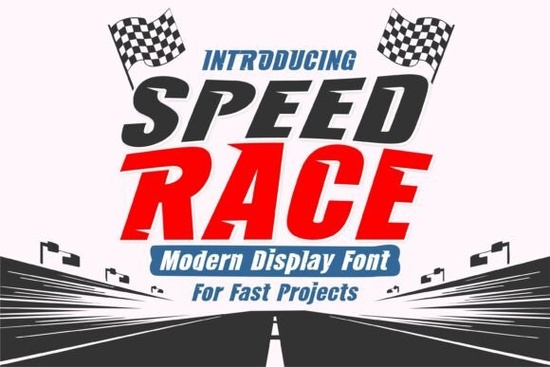
If you work on racing-themed designs, car club merch, or motorsport party invitations, the Speed Race Font deserves a spot in your font collection. AB Speed Race is a bold, racing-inspired typeface built to convey motion, power, and competitive energy. It works well for T-shirt designs, racing team logos, poster layouts, and vinyl cutting projects on Cricut or Silhouette machines.
What kind of projects work well with a racing font?
Racing fonts like Speed Race are designed for situations where you need bold, high-impact text that immediately communicates speed and energy. Think about the visual language of motorsport strong diagonal lines, aggressive weight, and a sense of forward motion baked into every letter.
Some common uses include:
- Car-themed T-shirts for enthusiasts, clubs, or event merchandise
- Racing team logos and branding for local motorsport groups
- Kids' racing birthday invitations and party decorations
- Custom decals and wall signs for garages or man caves
- Racing banners for track-day events or go-kart parties
- Sports-themed digital artwork and social media graphics
The bold styling means your text stays readable at large sizes on apparel and signage, while still looking sharp when cut from vinyl. That versatility is what separates a solid display font from one that only works in one context.
Is Speed Race Font good for Cricut and Silhouette projects?
Yes, and this is one of the main reasons crafters gravitate toward bold display fonts like this one. When you're cutting text from vinyl, heat transfer material, or cardstock, you need letterforms that are thick enough to hold up during weeding and application. Thin, delicate fonts tend to tear or lose detail on cutting machines.
Speed Race has the kind of heavy, confident strokes that cut cleanly and weed without frustration. It's a practical choice for:
- Heat transfer vinyl on racing jerseys or fan apparel
- Adhesive vinyl decals for cars, helmets, or toolboxes
- Layered paper crafts for motorsport-themed scrapbooking
- Stencil projects for painted signs
If you've ever struggled with a font that looked great on screen but fell apart at the cutting mat, a bold display option like this one solves that problem.
What other bold fonts pair well with a racing style?
Pairing fonts is where design gets interesting. Speed Race works as your primary headline font, but you'll often want a complementary typeface for body text or supporting details. Here are a few directions you could take:
- For a rugged, Western-meets-motorsport vibe: Pair it with a frontier outlaw typeface for a design that feels raw and untamed think desert racing or off-road themes.
- For something fierce and edgy: A shark teeth display font can add an aggressive, teeth-baring energy that works for monster truck events or extreme sports crossover designs.
- For softer, rounded contrast: If you're designing for a family-friendly racing party, mixing in a chunky preppy display font for secondary text can balance out the intensity of the racing font.
- For seasonal or holiday crossover projects: A festive holiday duo font could complement a racing theme if you're making Christmas cards for the car lover in your life.
The key is to let the racing font dominate headlines while using a calmer font for dates, details, and longer text blocks.